12 Elegant Serif Fonts for Modern Editorial Layouts
As a designer, I often use classic serif fonts to create editorial layouts that feel sophisticated, timeless, and visually balanced. This curated collection of 12 classic serif fonts for magazine layouts in 2026 features typefaces I personally love using in branding, publishing, and high-end editorial design projects.
Each font was selected for its elegant structure, readability, and refined character — perfect for magazine spreads, fashion editorials, lookbooks, luxury branding, and modern print design. These serif typefaces help create a polished visual identity while adding depth and professionalism to every composition.
Typography plays a huge role in storytelling, and I believe the right serif font can instantly elevate an editorial layout with style, clarity, and timeless elegance.
Sunroll Serif Font
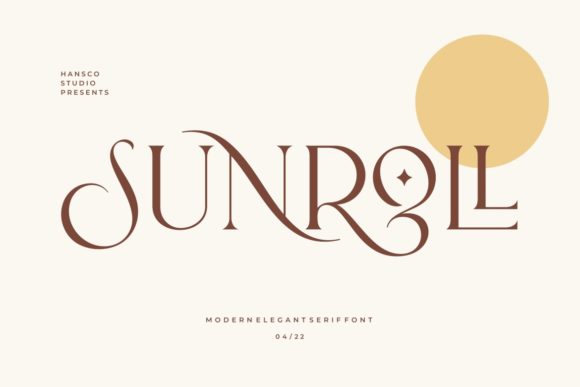
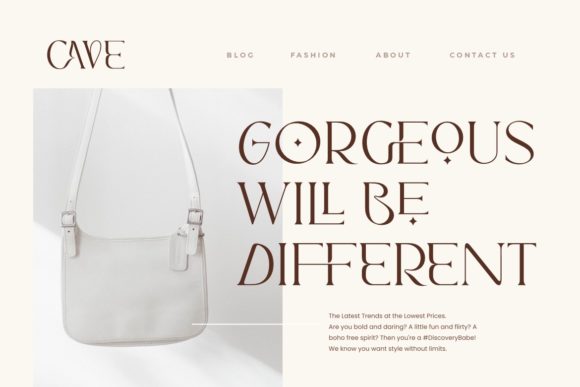
Sunroll is a delicate serif font that combines minimal elegance with a modern luxury feel. I love using it for branding, editorial layouts, invitations, logos, packaging, and social media graphics because its thin stylish lettering feels refined and sophisticated. The graceful serif details and versatile design create a timeless aesthetic that makes every project look clean, premium, and beautifully crafted.
Cloudy Aurora Serif Font
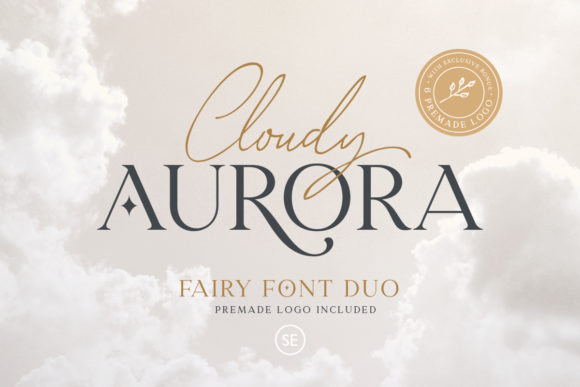
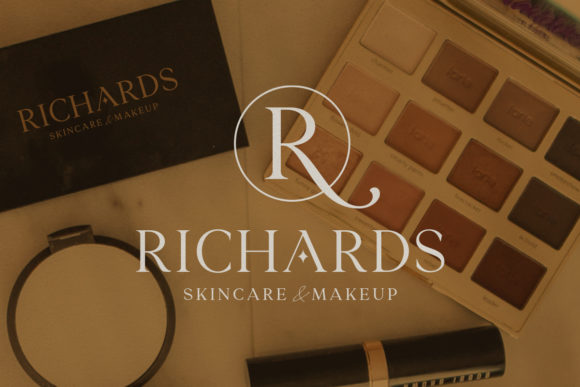
Cloudy Aurora is a beautiful font duo that combines elegant serif lettering with a stylish handwritten script for a sophisticated modern look. I enjoy using it for branding, wedding invitations, logos, packaging, editorial layouts, and social media graphics because the mix of classic and handwritten styles feels luxurious and versatile. This font pairing instantly makes every design look polished, creative, and visually captivating.
Arches Serif Font
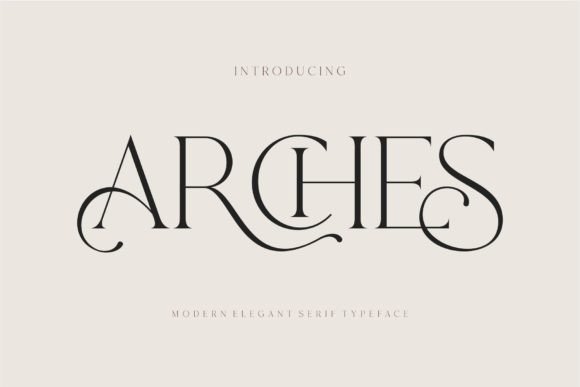
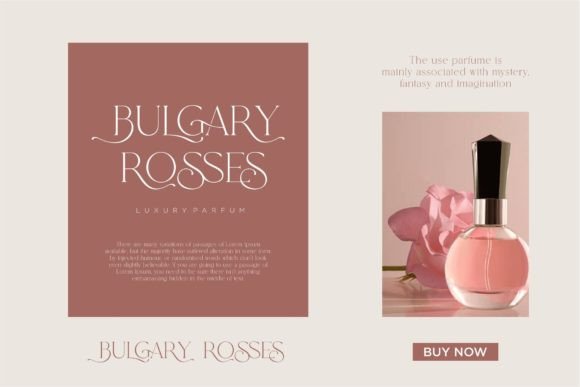
ARCHES is a modern ligature serif font that brings a clean and luxurious aesthetic to any design project. I enjoy using it for branding, logos, invitations, beauty packaging, brochures, and social media graphics because its minimalist serif style feels elegant and contemporary. The stylish ligatures and refined letterforms create a premium look that makes every design feel sophisticated and visually timeless.
Bright Darling Duo Serif Font
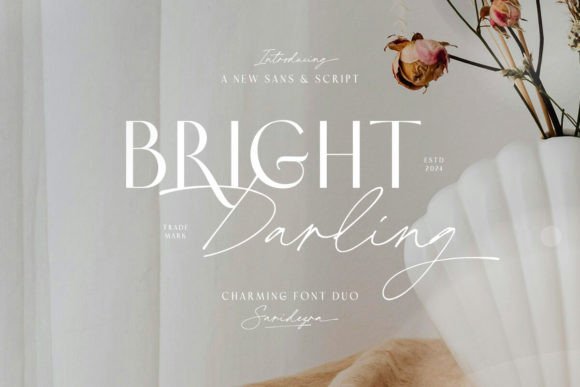
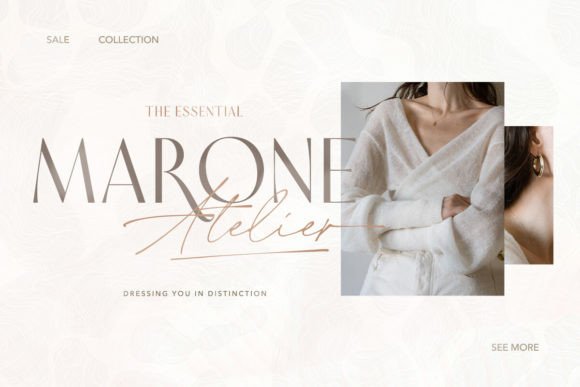
Bright Darling is an elegant font duo that combines a modern sans serif with a graceful script font for a perfectly balanced luxury aesthetic. I love using it for branding, wedding invitations, logos, packaging, editorial layouts, and social media graphics because the clean minimal style paired with handwritten elegance feels timeless and sophisticated. This stylish font pairing instantly makes designs look polished, creative, and professionally crafted.
Elegant Serif Font
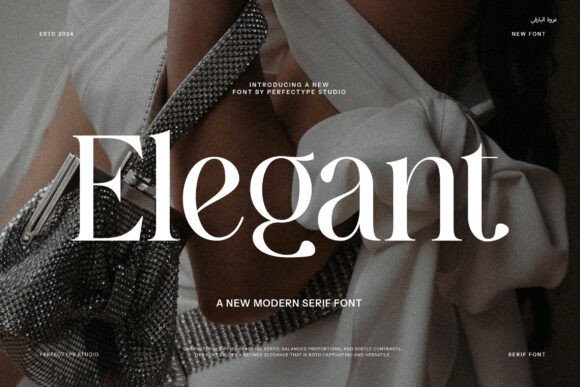
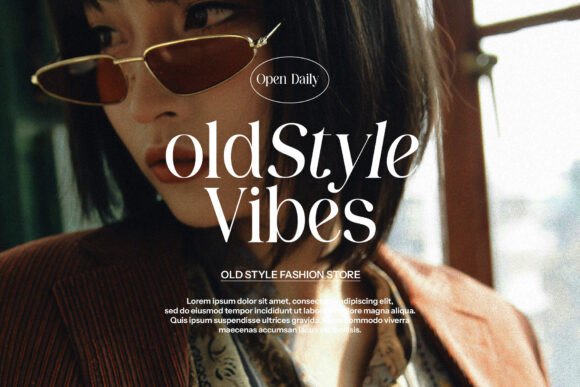
Elegant Font is a refined typeface style that brings sophistication and timeless beauty into any design. I enjoy using elegant fonts for branding, wedding invitations, logos, editorial layouts, packaging, and fashion projects because their graceful curves and stylish lettering create a luxurious visual appeal. The clean lines and classy aesthetic make every design feel modern, polished, and effortlessly premium.
Varoca Serif Font
Varoca is a stylish ligature typeface that brings a clean minimalist and luxurious feel to any creative project. I love using it for branding, logos, advertising, brochures, packaging, and editorial designs because its modern serif style feels elegant and professional. The unique ligatures and refined letterforms create a sophisticated visual identity that makes every design look premium and unforgettable.
Montage Serif Font
Montage is a thin serif font that brings elegance and luxury into every creative project. I love using it for branding, editorial layouts, logos, invitations, packaging, and fashion designs because its refined lettering feels modern and sophisticated. The clean serif details and stylish minimalist aesthetic create a timeless premium look that instantly elevates any design.
Ethereal Serif Font
Ethereal is a modern serif font family that combines elegance, luxury, and contemporary style in a truly sophisticated way. I enjoy using it for branding, logo design, editorial layouts, packaging, and fashion projects because its refined letterforms and stylish details feel classy and unique. The fashionable serif aesthetic creates a premium visual identity that makes every design look polished, elegant, and unforgettable.
Vogue Serif Font
Vogue is a classy serif font that instantly brings elegance and sophistication into any design. I love using it for fashion editorials, luxury branding, magazines, invitations, and high-end packaging because its sleek lines and refined curves create a polished and timeless aesthetic. The modern yet graceful style makes every project feel confident, stylish, and effortlessly premium.
Lovely Serif Font
I use Lovely in my design projects when I want a charming serif typeface that blends elegance with a romantic touch. Its graceful curves and refined letterforms are perfect for luxury branding, wedding invitations, logos, and editorial layouts. I love how it adds warmth and sophistication to both print and digital designs, creating a polished and timeless aesthetic that always leaves a strong impression.